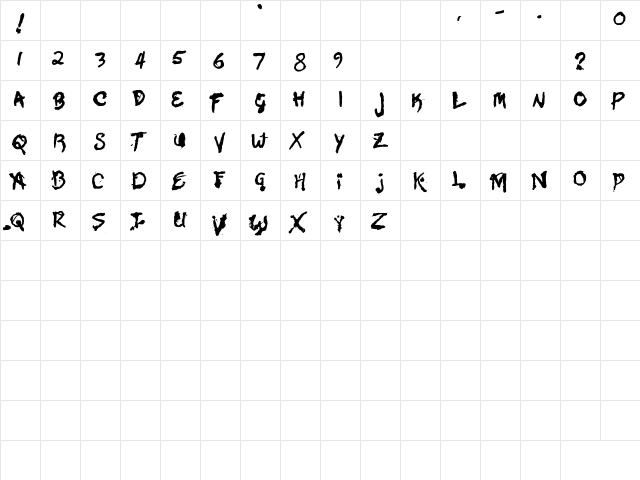
Zona Armada Regular
Design Context for Zona Armada Typeface
Zona Armada is a composed and adaptable typeface that performs quietly and consistently across a wide range of design contexts.